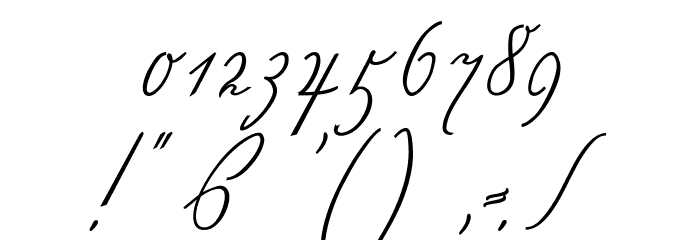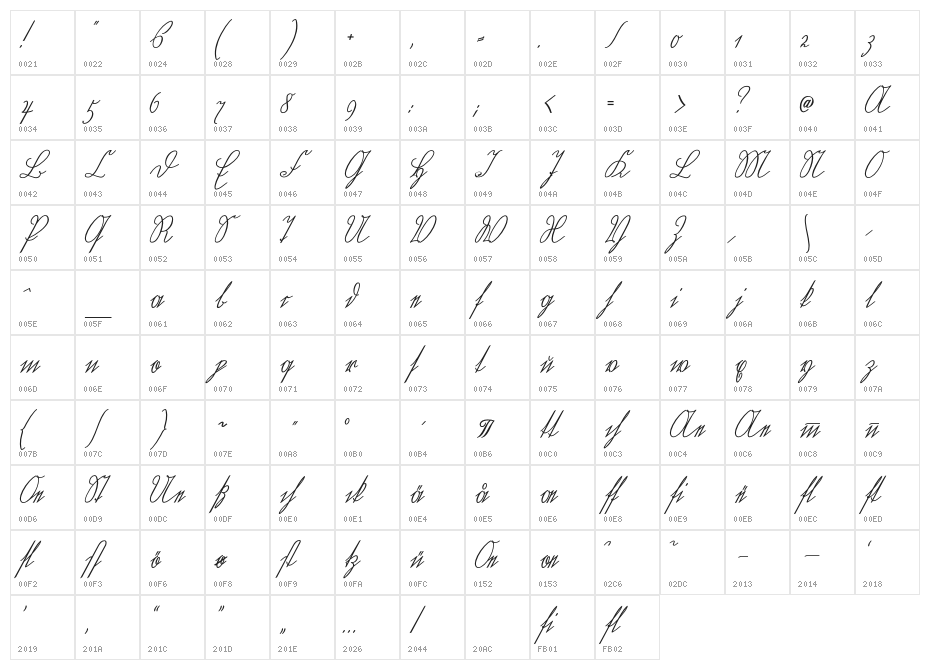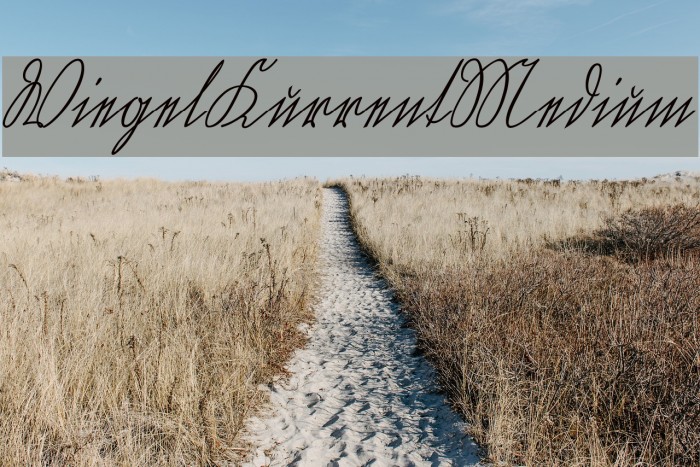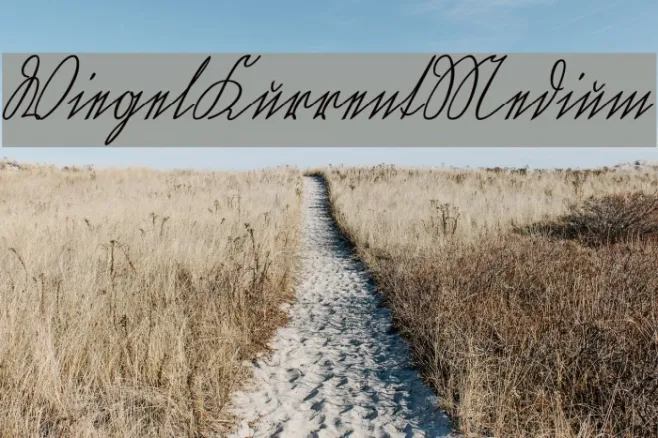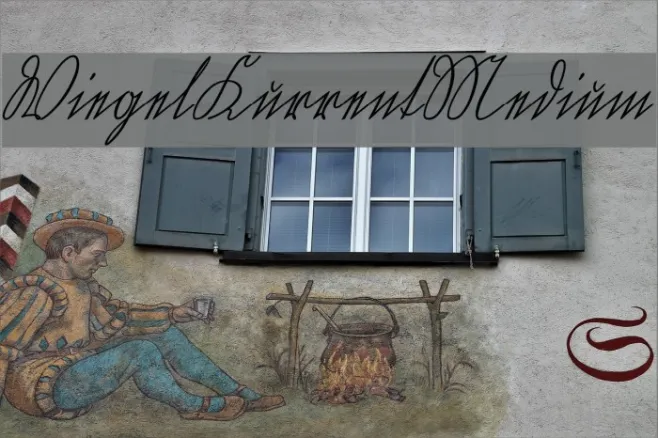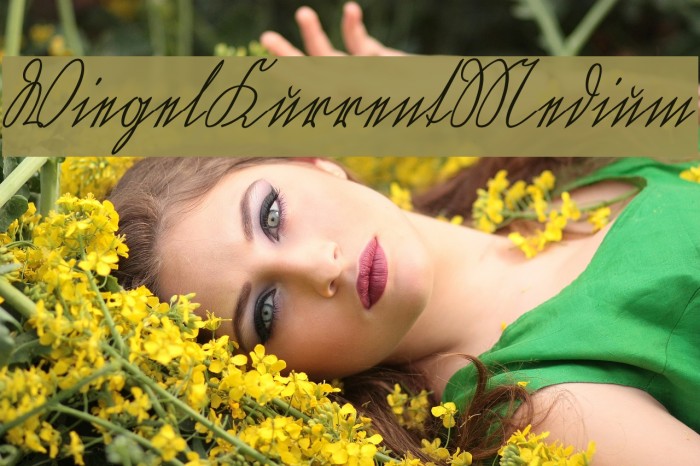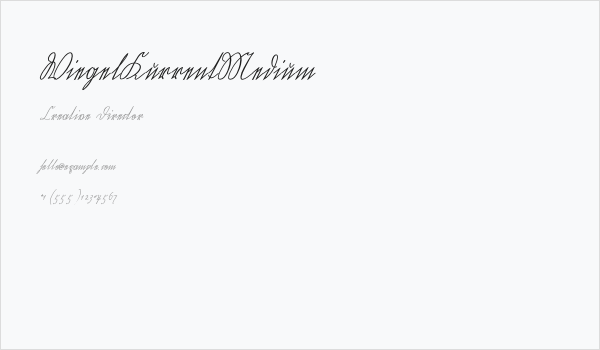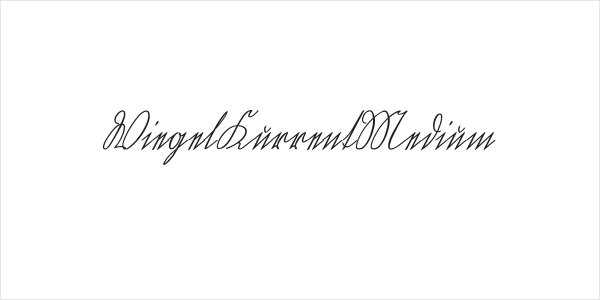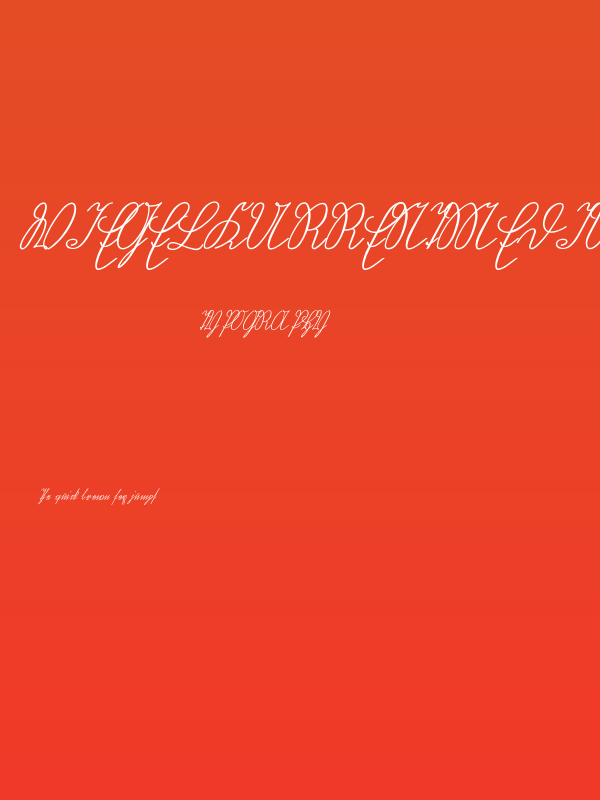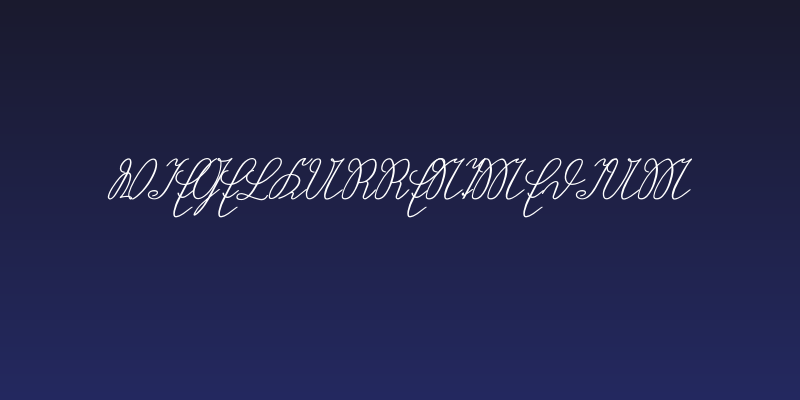
WiegelKurrentMedium Font
WiegelKurrentMedium Description
This font embodies a traditional script style reminiscent of historical handwriting. It features elegant, flowing lines with a distinct slant, capturing the essence of classic penmanship. The characters are intricately designed with loops and flourishes, giving it a sophisticated and ornate appearance. The uppercase letters are particularly elaborate, while the lowercase letters maintain a consistent fluidity. Numbers and special characters are styled to match the overall aesthetic, ensuring a cohesive look. This font is perfect for projects that require a touch of vintage elegance and a nod to historical scripts.
| Use Case | Logos, Invitations, Decorative Text |
| Proposed Projects | Ideal for wedding invitations, historical documents, certificates, and decorative projects. |